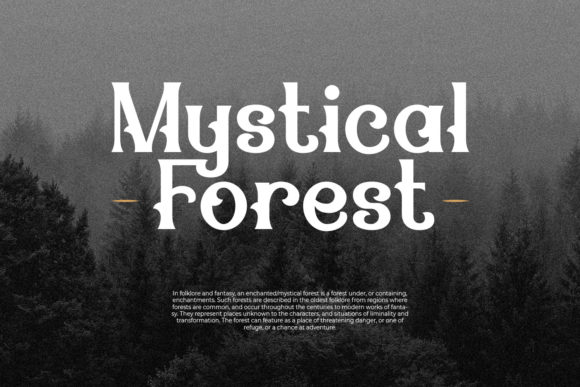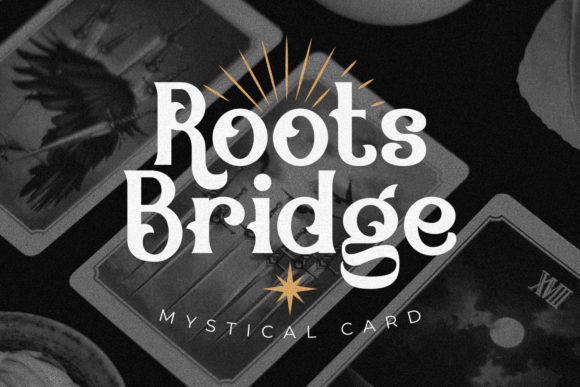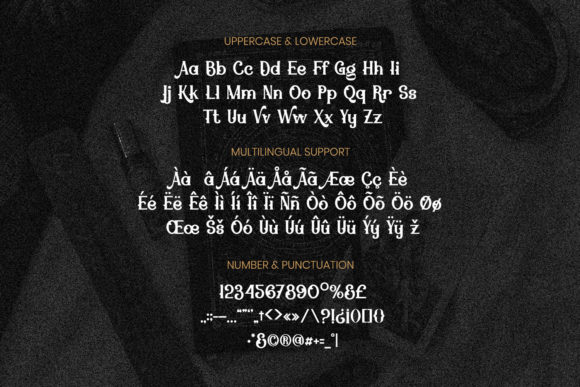
Introduction to Forever Font
Remember the thrill of finding that perfect design element for your creative project? The moment when everything comes together, and your vision takes shape? For designers, this feeling is priceless, and it’s what makes the process so rewarding. Recently, I stumbled upon the Forever Font, a game-changing addition to any design resource.
With its bold, thick letters and uniquely shaped characters, the Forever Font is an imposing and eye-catching display font that’s sure to elevate your designs to the next level. Whether you’re working on a high-quality project that requires a distinct touch or need a versatile font to match a wide range of creations, the Forever Font is an excellent choice. And the best part? It’s available for a free download, making it an accessible design resource for designers of all levels.
As a valuable addition to any designer’s toolkit, the Forever Font offers endless possibilities for creative expression. Its transparent background and high-quality design make it perfect for a variety of applications, from digital designs to print materials. So, what are you waiting for? Dive into the world of the Forever Font and discover a new dimension of design possibilities.
Key Features of Forever Font
- High-quality, professional font design for various creative projects
- Perfect for use in logos, branding, and other creative projects where a unique font is required
Honest Review: Forever Font
I recently had the chance to work with the Forever Font, and I must say it’s a solid addition to any designer’s toolkit. The high quality of the font is immediately apparent, with crisp lines and a professional look that’s perfect for any creative project.
- High-quality design – the font is clear and legible, even at smaller font sizes.
- Limited font styles – the Forever Font comes in a relatively small number of styles, which may limit its versatility.
- No support for advanced typography features – this may be a drawback for designers who rely on more complex typography in their work.
Overall, I’m impressed with the Forever Font. While it may have some limitations, its high quality and ease of use make it a great addition to any designer’s arsenal. I’d definitely recommend it for any creative project, and the free download makes it an even more attractive option.
Forever Font is a high-quality design resource ideal for creative projects such as wedding invitations, business cards, and social media graphics. Its transparent background makes it easy to use in conjunction with other design elements.
Tips for Getting the Most Out of Forever Font
To get the most out of Forever Font, consider the following tips: download the free version to ensure high-quality output, experiment with different font sizes and colors to achieve the desired look, and use Forever Font in conjunction with other design elements to create a visually appealing design.